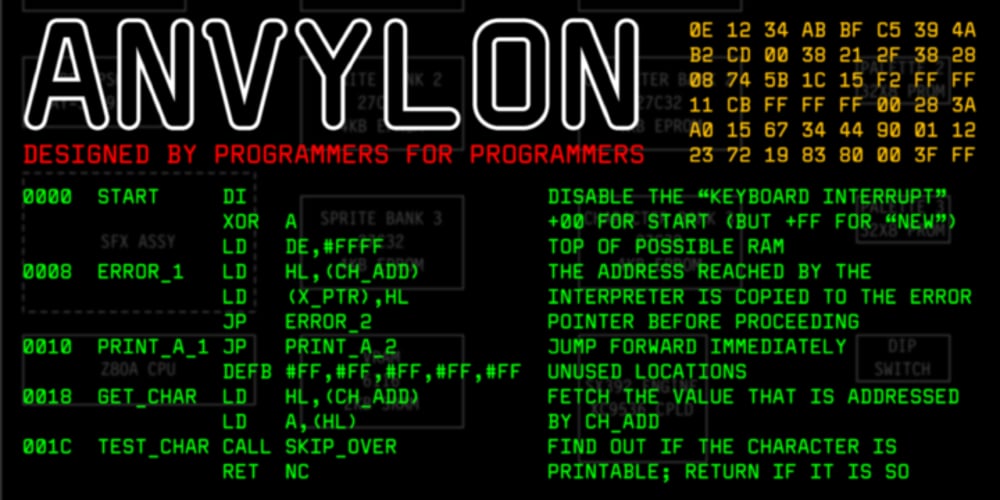
Anvylon Font Family was designed by Javier Cos and published by Crestaco. Anvylon contains 1 styles and family package options. Anvylon is a monospaced typeface for use in programming and tabular material with a remarkable retro look-and-feel of the early video terminals and line printers that makes activities such as 8-bit coding and console work much more appealing and comfortable. Designed for optimal grid fitting at small sizes, its main features are forced to a very restricted set of integer positions and dimensions, absolutely unhinted, and mostly free of overshoots.